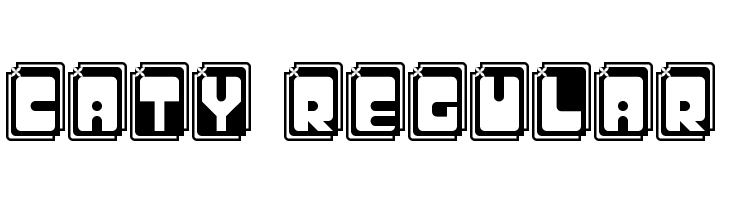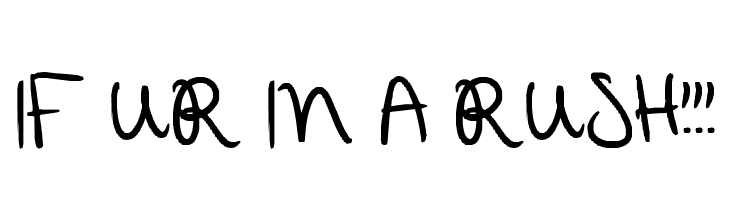
A playful, whimsical handwritten font with tall, narrow letters and irregular strokes.
A bold, angular font with a geometric and striking design.
A bold, dynamic script font with a handwritten, energetic style.
A playful, hand-drawn font with tall, narrow letters and a whimsical style.
An ornate and decorative font with intricate lace-like patterns and diamond-shaped borders.
A playful, hand-drawn font with bold strokes and a whimsical style.
A dramatic Gothic font with ornate, medieval-inspired details.
A bold, playful font with a hand-drawn, textured style.
设计师偏爱 MTF Jotted, IcicleCountryTwo-Regular, Hotham Free Demo, HeartKeeper and JFIvyLace,因为其造型干净、适用范围广—— 从品牌识别到落地页、海报都能胜任。